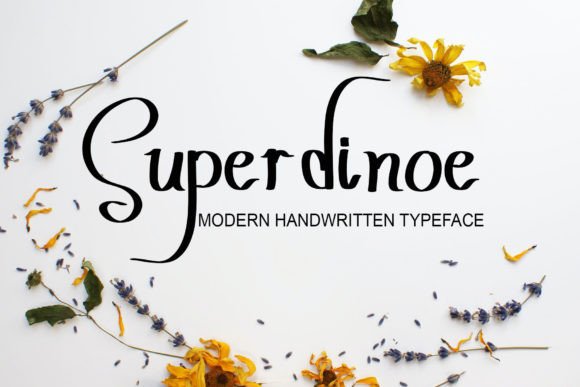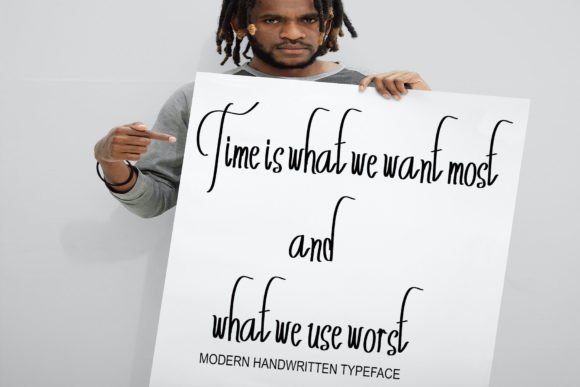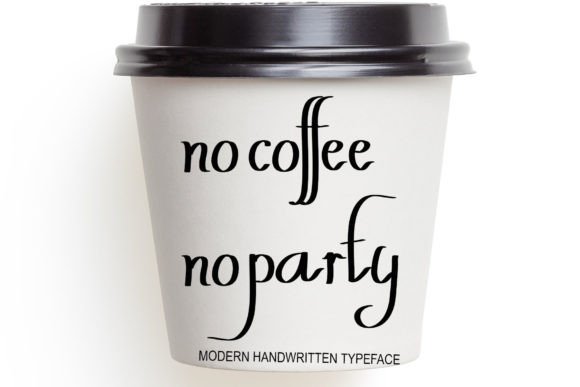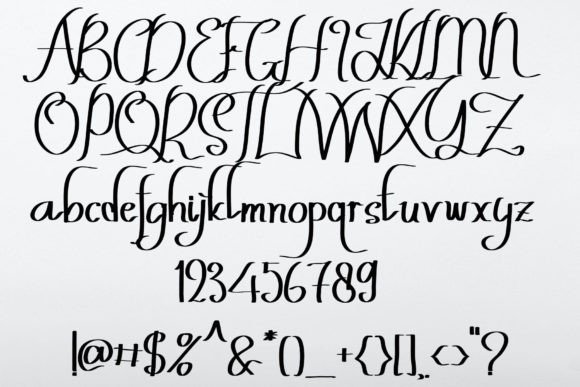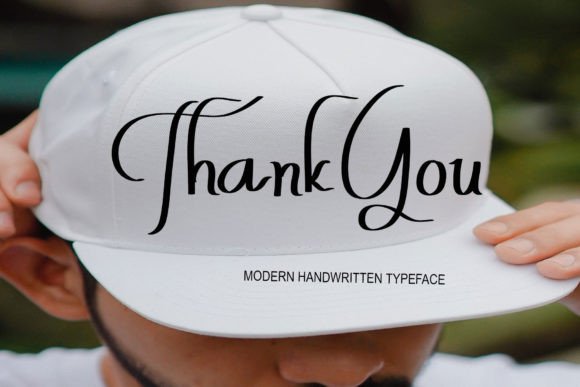
Super Dinoe Font
About Super Dinoe Font
Super Dinoe font is a simple and stylish handwritten typeface crafted using a tablet, giving it an authentic, natural feel. When you download Super Dinoe font, you get a clean and versatile script that’s perfect for a variety of creative projects. Despite its simplicity, this font delivers a cool and modern aesthetic, making it stand out among other handwritten fonts.
Simple Yet Stylish Design
The charm of Super Dinoe font lies in its simplicity. It features smooth, flowing strokes that feel personal and warm. This handwritten font works beautifully on websites, wedding invitations, business cards, and even advertisements. Whether you want to create a sleek signature or an engaging promotional design, downloading Super Dinoefont will provide the right style for your work.
Versatility Across Projects
Super Dinoefont adapts well to many uses. It’s ideal for both personal and professional projects, including logos, branding, social media posts, and more. When you download Super Dinoefont, you gain a flexible tool that elevates your designs with its clean, stylish look.